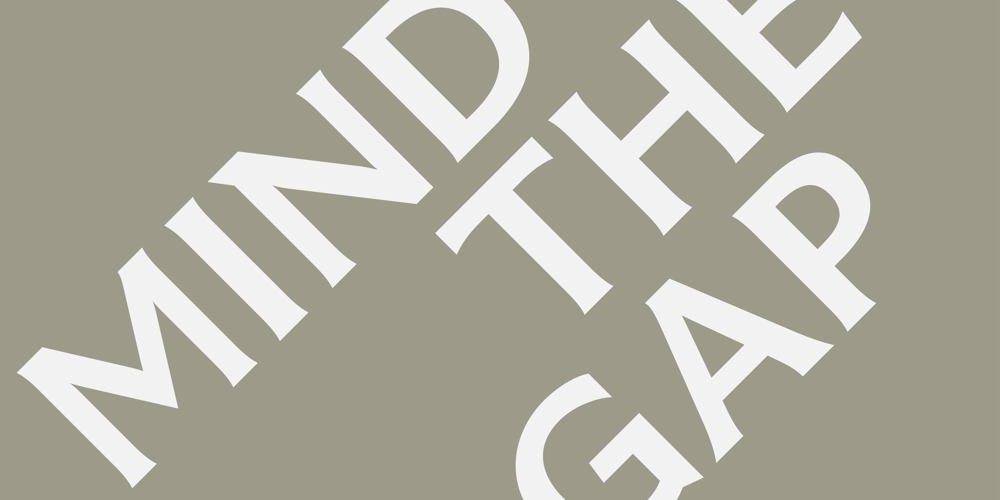
FS Benjamin Font Family was designed by Stuart De Rozario and published by Fontsmith. FS Benjamin contains 12 styles and family package options. Stone and steelFS Benjamin is a flared serif typeface designed by Stuart de Rozario. Consisting of 12 styles ranging from Light, Book, Regular, Medium, SemiBold and Bold with Italics it has clear, delicate letterforms, punctuated with brutal chiselled angles. With a pure and crafted feel to the forms the typeface has traditional roots but has been designed to work in a contemporary setting. Archetypal proportions in terms of x-height to cap height and ascender to descender ratio, allow the typeface to feel familiar and be legible in all platforms.Delicate brutalismInspired by the contrasts of London and named after Big Ben, FS Benjamin was designed by Stuart de Rozario and founder, Jason Smith. Walking around London Jason was inspired by the juxtaposition of the old and the new. Glass and steel architecture can often be found amongst traditional signage and coats of arms seen around the City. These surroundings sparked an idea to create a modern design based on an alphabet that would traditionally be carved from stone.“Much of the typography we see today is so similar. I thought what if we created a typeface with traditional roots but modernised it to sit amongst the punk and noise of the streets of London? Old with new. Business with busyness. This is what London is all about.” Jason Smith